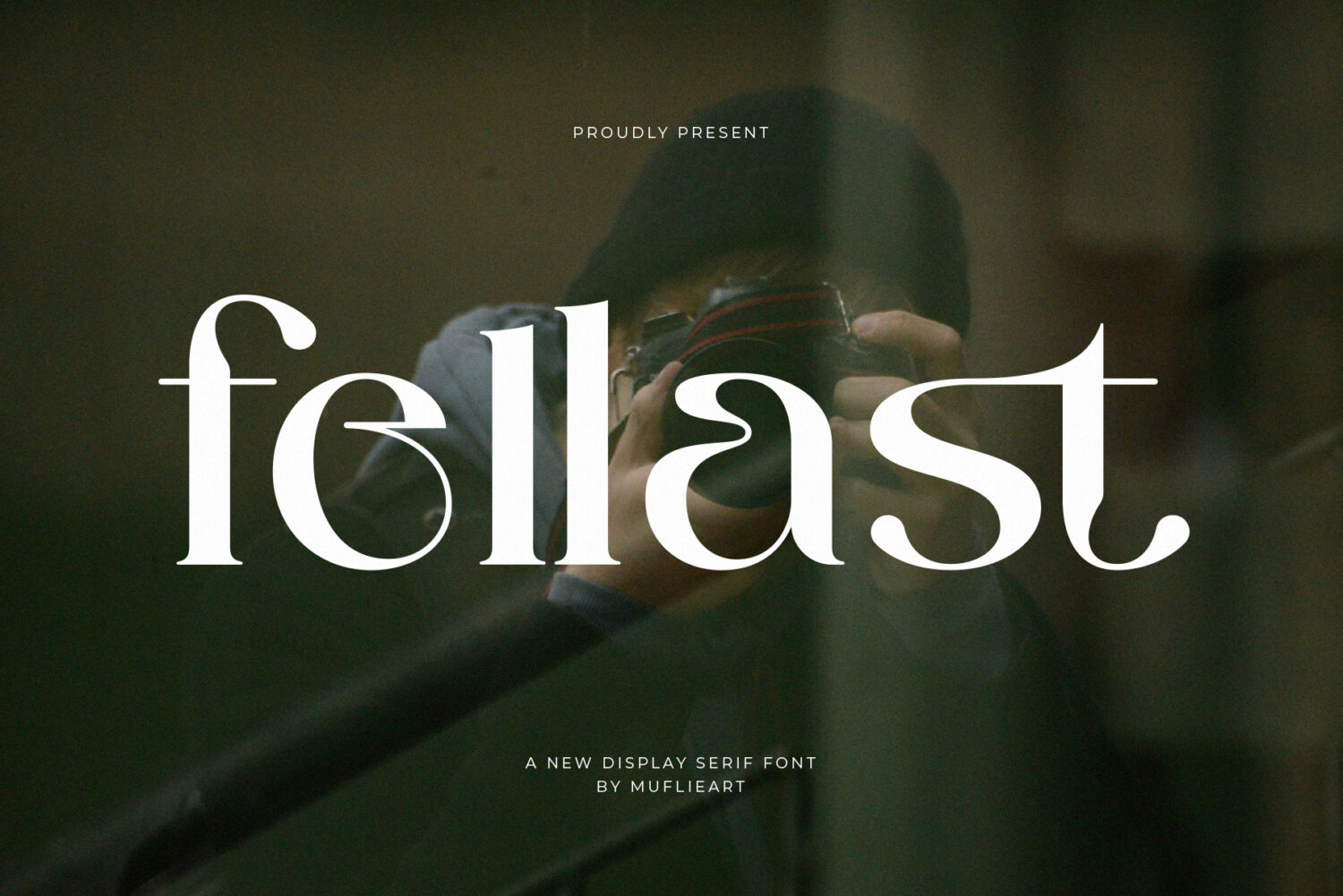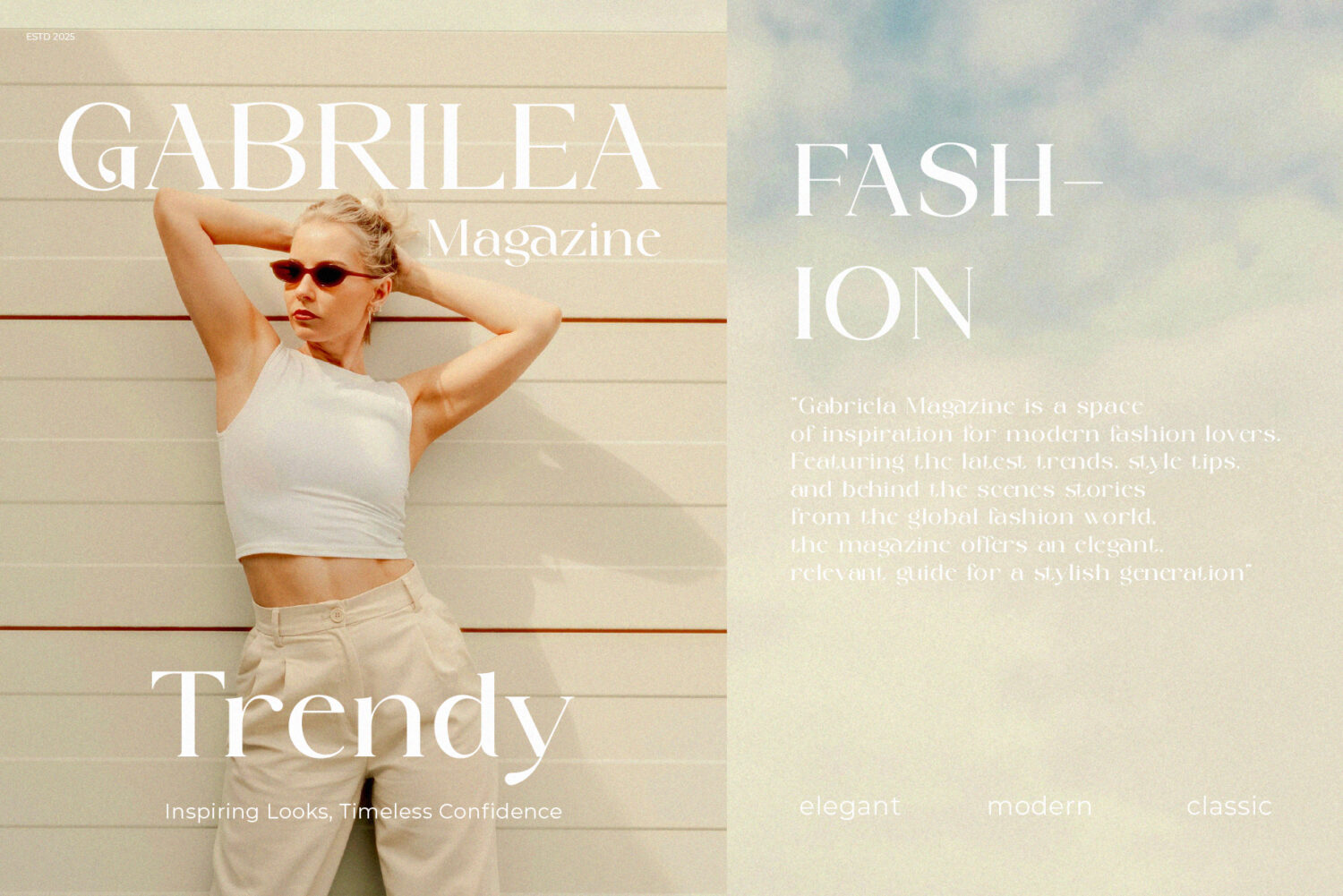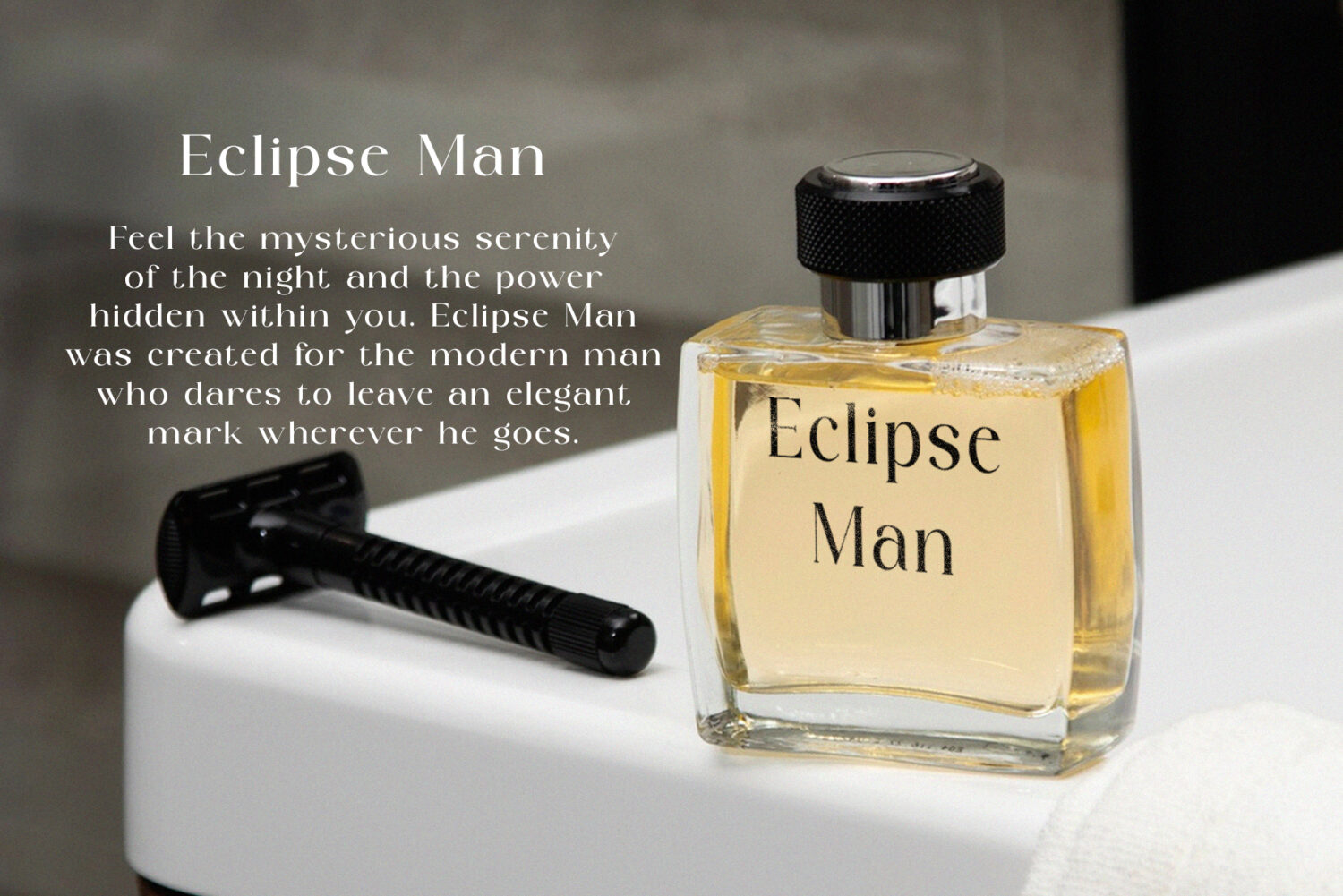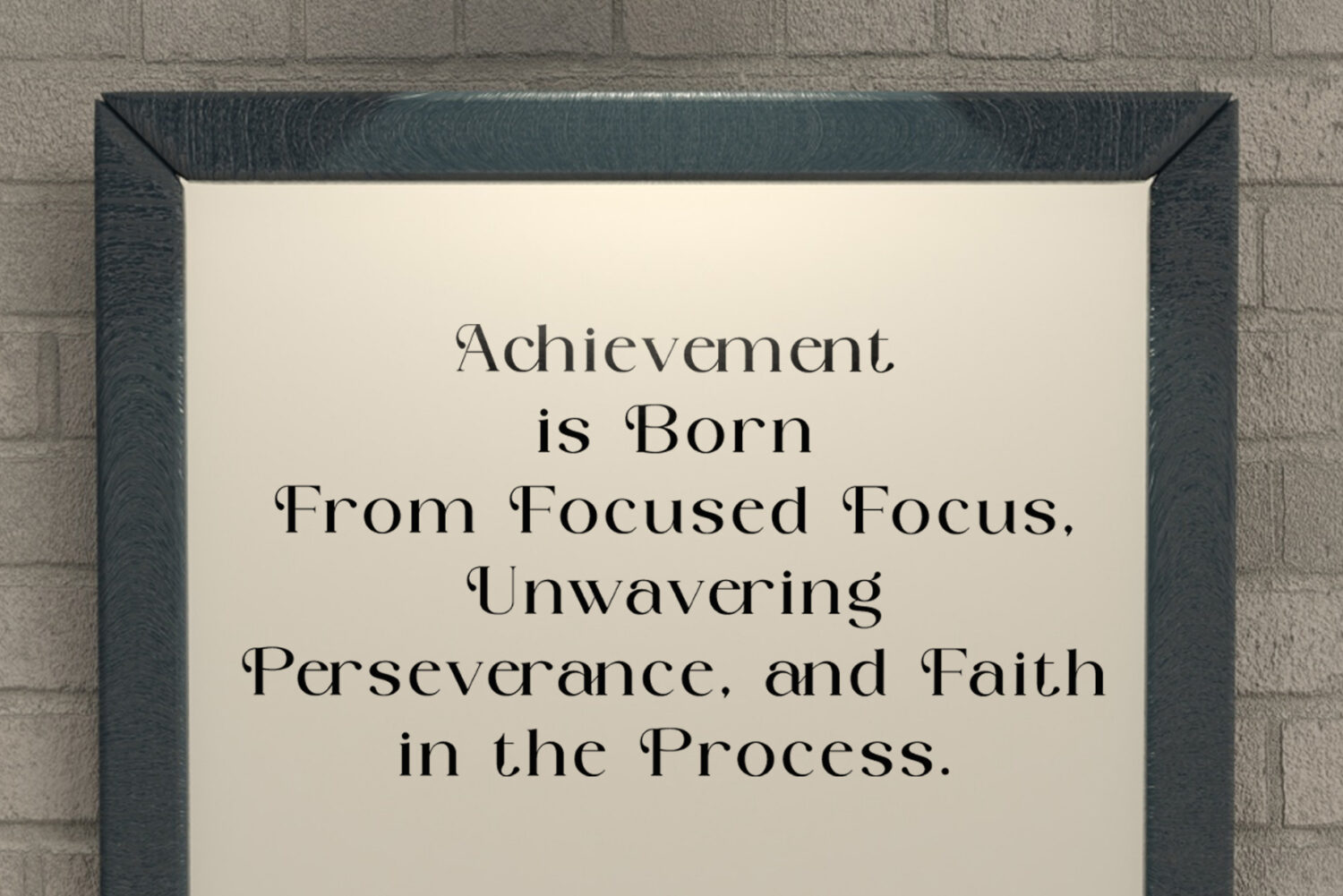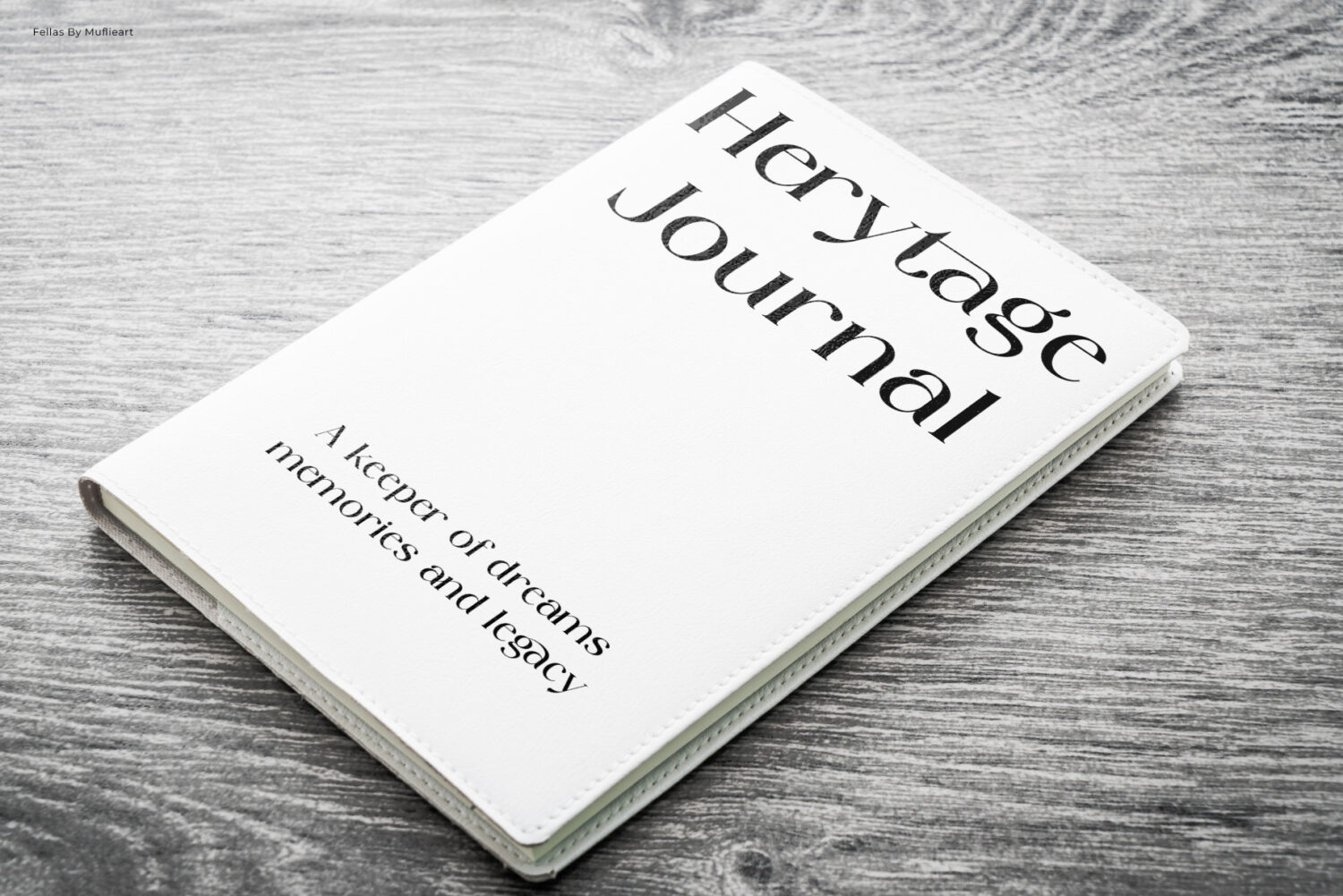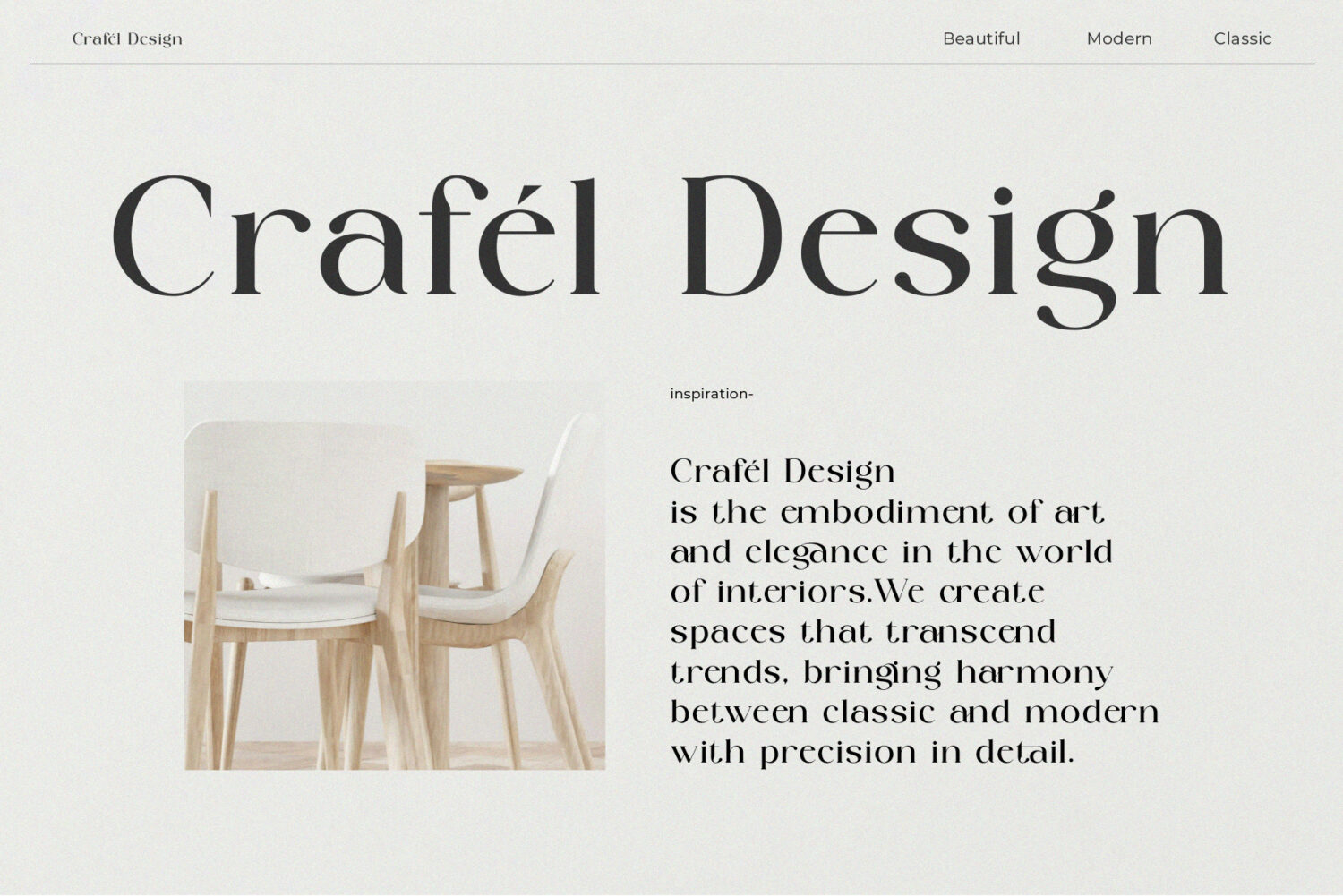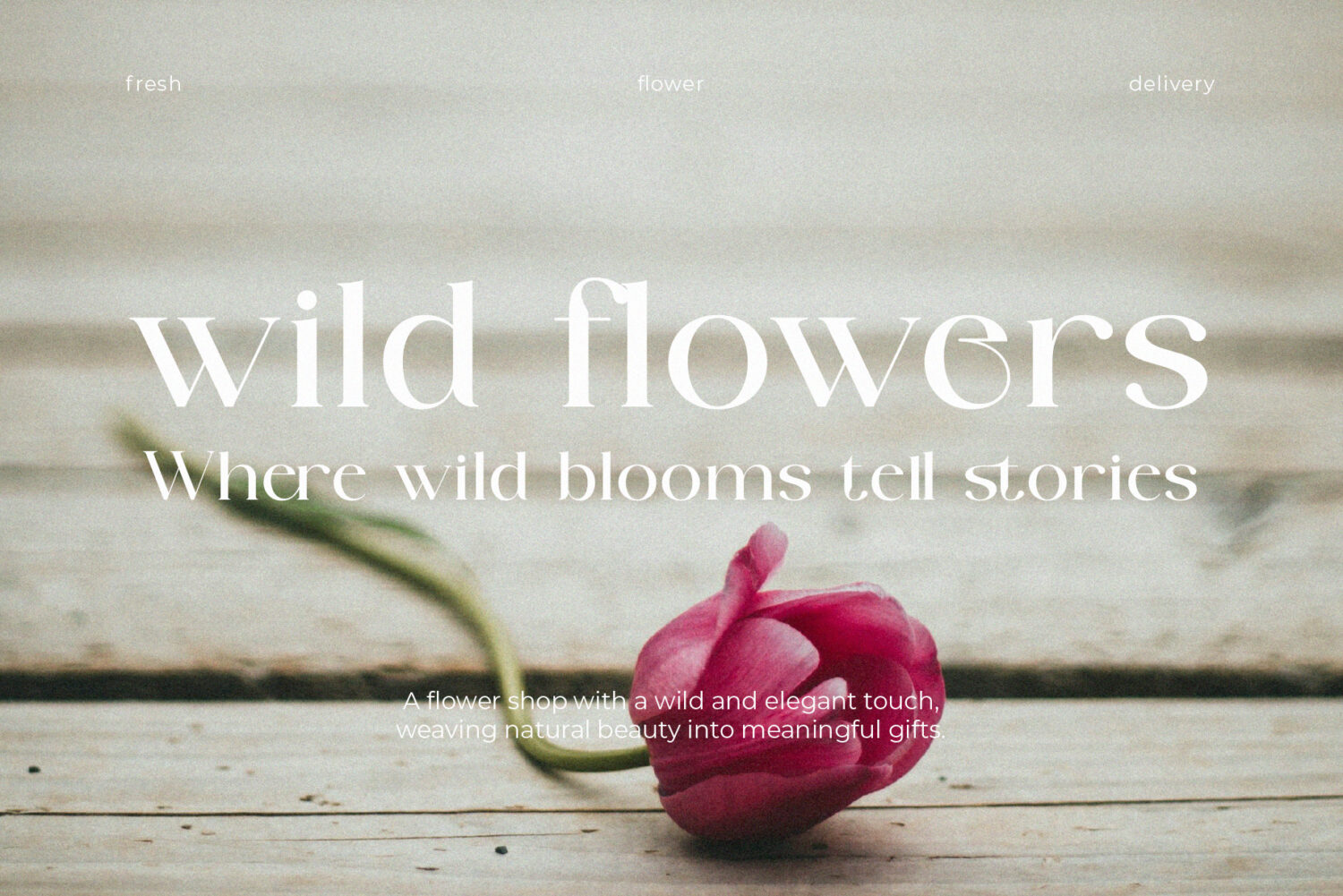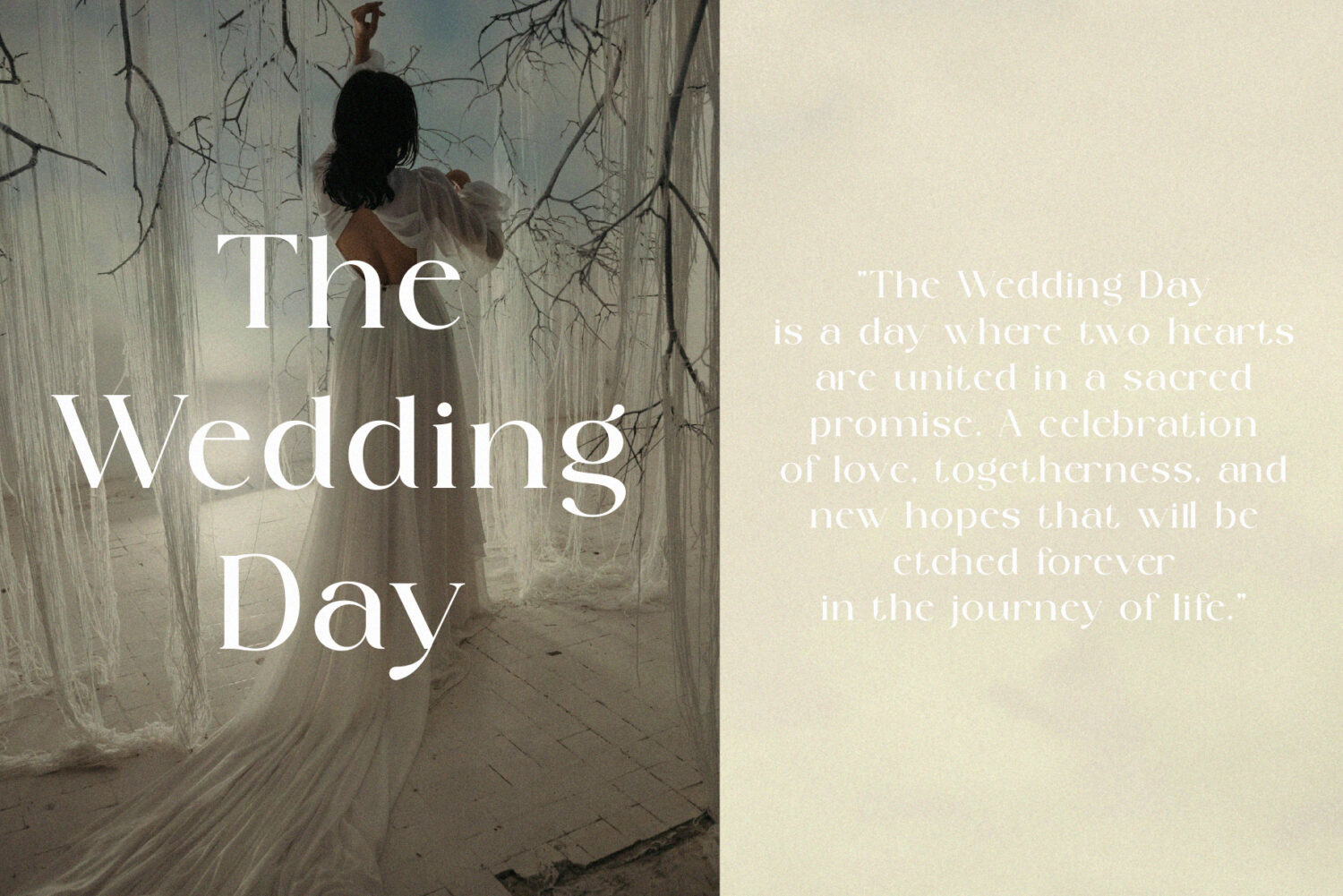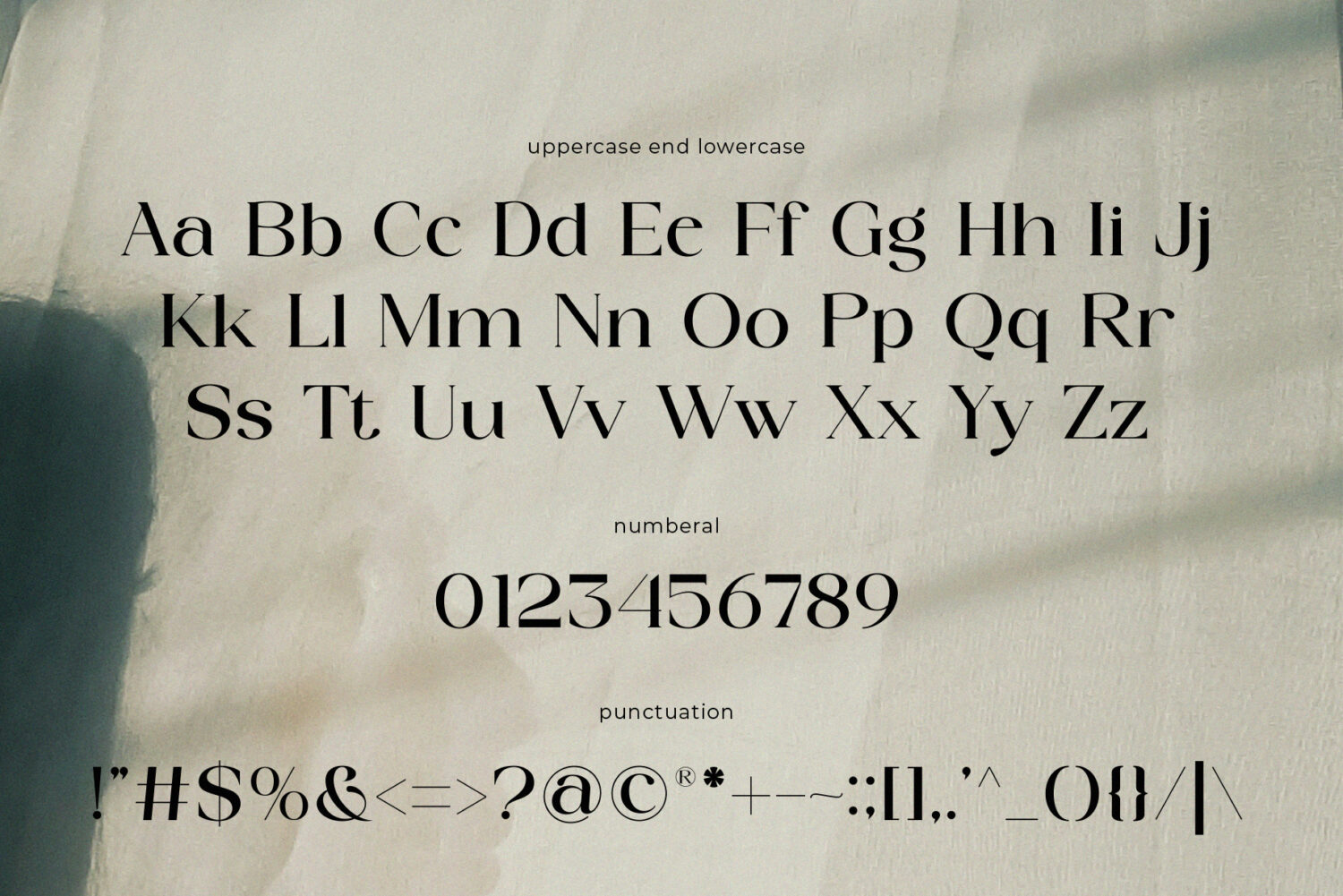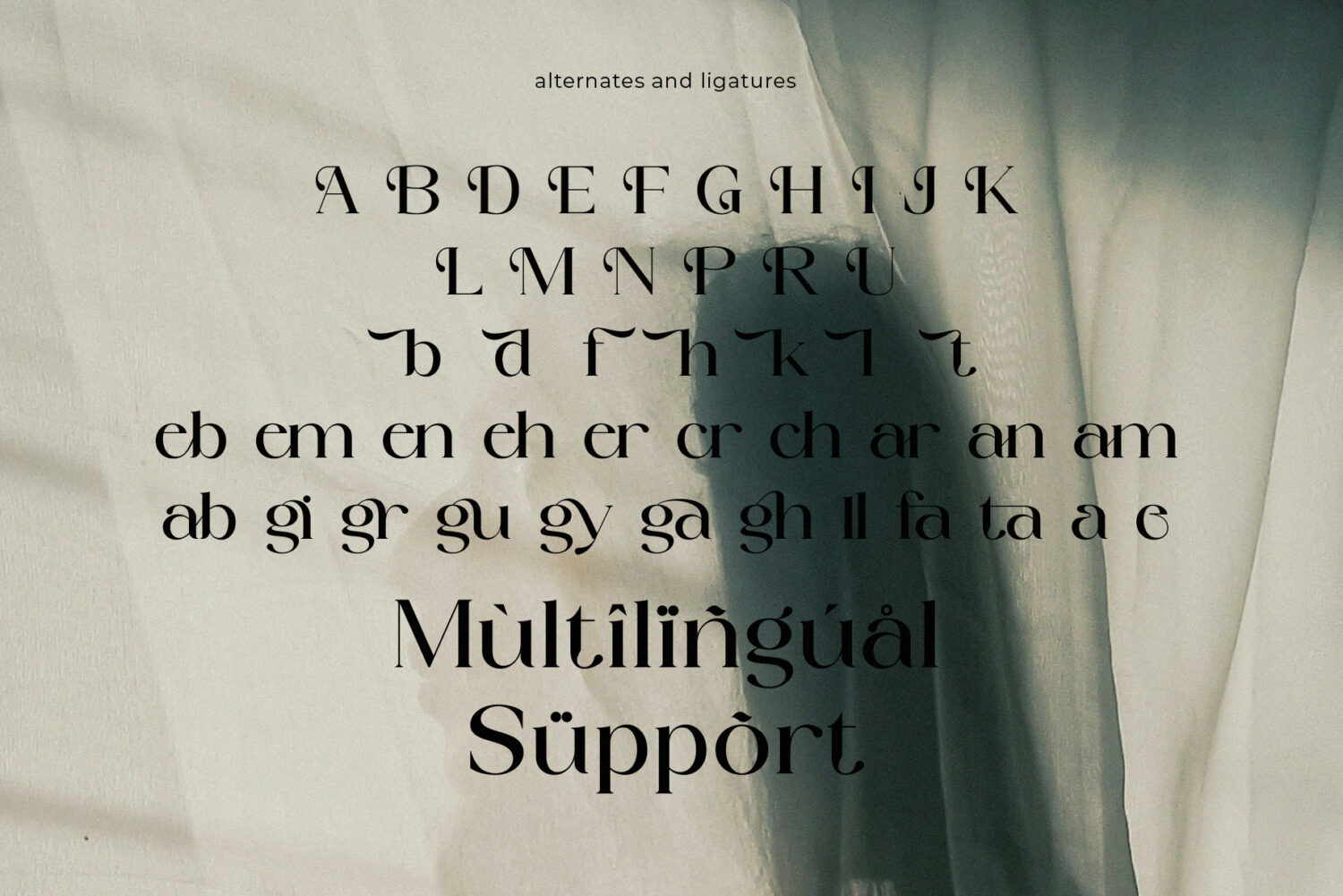
Introducing **Fellast** the elegant, beautiful, and display modern Serif. With its modern and minimalist look, Fellast brings a luxurious, classy, and clean style to your projects such as websites, modern logos, brand identities, social media quotes, wedding stationery, magazines, and more!
Fellast features unique and classy capital letters A to Z and also comes with unique alternates and ligatures making Fellast a beautiful font that can be customized for various projects and jobs you want.
Fellast is perfect for: logos, brands, wedding invitations, business cards, greeting cards, posters, magazines, social media, agenda prints, and websites.
– Alternative styles and ligatures